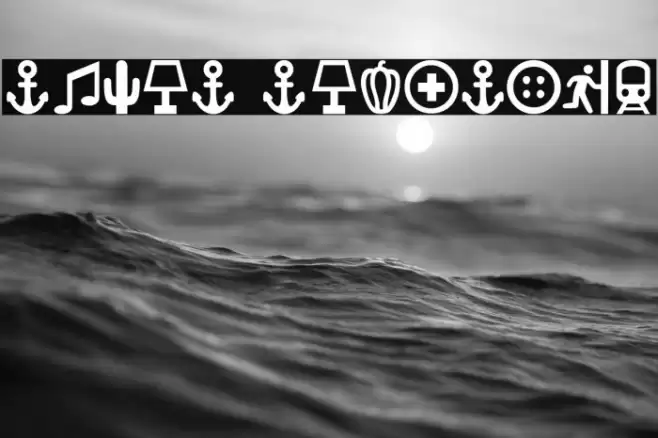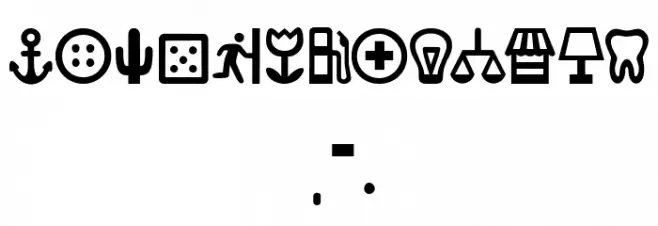
Ancla Alphabet Font
Ancla Alphabet Description
A pictogram-based decorative font featuring bold, simplified icons representing objects, symbols, and activities. Each character is a unique, easily recognizable icon with consistent stroke thickness and rounded edges, designed for visual communication rather than traditional text.
A bold iconographic font composed of clear, playful pictograms from Uncategorized fonts.
- Proposed Projects: Infographics, signage, educational materials, children’s books, visual communication aids, posters.
- Overall Style: Decorative, Modern, Playful
- Use Case: Icons, Visual aids, Posters, Signage